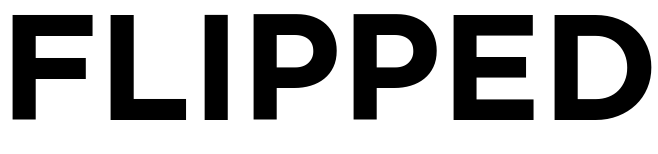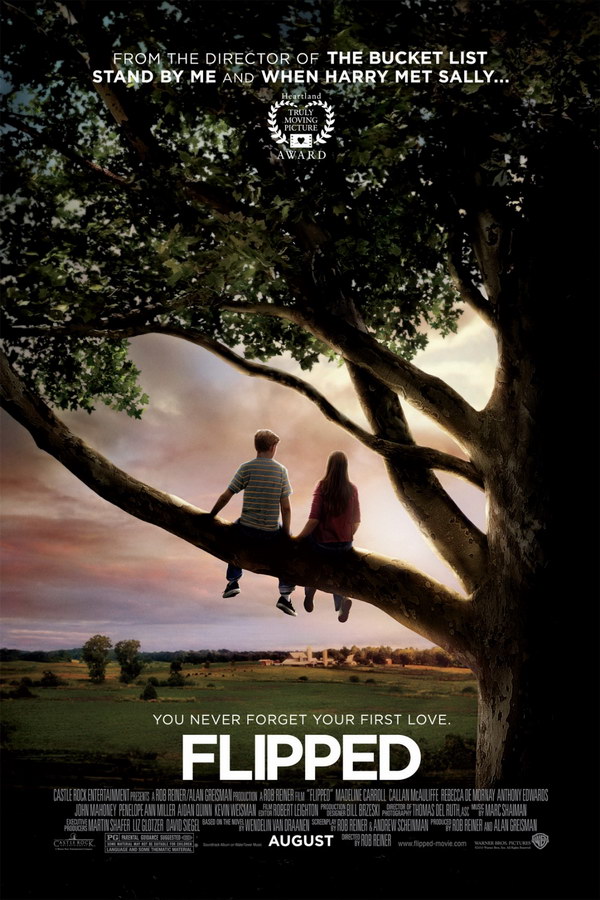
Flipped Font
Fonts in UseFlipped is a 2010 romantic comedy-drama film directed by Rob Reiner. The story follows the relationship between two eighth-graders who begin to have feelings for each other after a series of events.
The movie title on the poster was possibly designed with Gotham Bold by Tobias Frere-Jones, a commercial typeface inspired by old NYC building lettering. More details about the font family is available here.